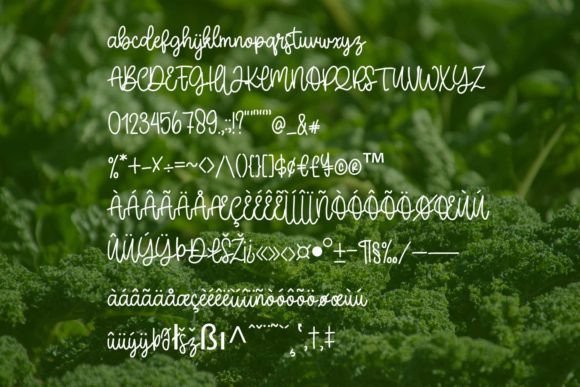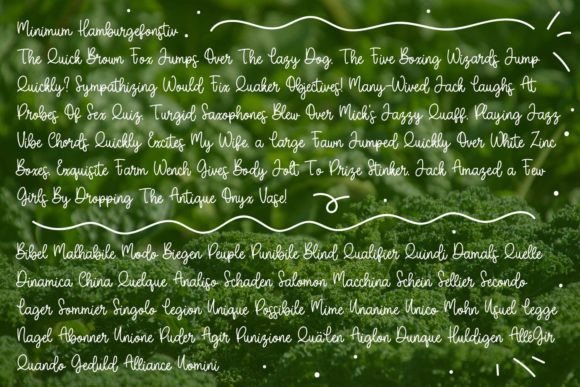
Introducing Broccoli Script Font: The Fun and Friendly Handwritten Script Font
Are you looking for a font that can add a touch of personality and whimsy to your designs? Look no further than the Broccoli Script Font! This delightful handwritten script font is perfect for designers and crafters who want to create standout designs that capture the imagination. In this article, we’ll take a closer look at the Broccoli Script Font, its features, and how you can use it to elevate your designs.
The Charm of Broccoli Script Font
Broccoli Script Font is a fun and friendly handwritten script font that is sure to capture the hearts of designers and crafters alike. Its unique charm lies in its effortless, flowing strokes and delightful glyphs that add a touch of playfulness to any design. Whether you’re creating a logo, a poster, or a social media graphic, Broccoli Script Font is the perfect choice to add a dash of personality to your work.
One of the standout features of Broccoli Script Font is its PUA (Private Use Area) encoding. This means that you can access all the delightful glyphs and swashes effortlessly, making it easy to create stunning designs that showcase your creativity. With PUA encoding, you can easily access the font’s extended character set, including ligatures, ornaments, and other special characters that will take your designs to the next level.
Why Choose Broccoli Script Font?
So, why choose Broccoli Script Font over other script fonts? Here are just a few reasons why this font stands out:
- Unique and playful design: Broccoli Script Font has a one-of-a-kind design that is sure to grab attention. Its playful strokes and delightful glyphs make it perfect for designs that require a touch of whimsy.
- PUA encoded: With PUA encoding, you can easily access the font’s extended character set, making it easy to create stunning designs.
- Versatile: This font is perfect for a wide range of design projects, from logos and posters to social media graphics and more.
How to Use Broccoli Script Font
Using Broccoli Script Font is easy! Here are a few tips to get you started:
- Pair it with a bold font: Broccoli Script Font pairs perfectly with bold fonts, creating a striking contrast that adds visual interest to your designs.
- Experiment with glyphs and swashes: With PUA encoding, you can easily access the font’s extended character set. Experiment with different glyphs and swashes to add a touch of personality to your designs.
- Use it for headings and titles: Broccoli Script Font is perfect for headings and titles, adding a touch of whimsy and personality to your designs.
In conclusion, Broccoli Script Font is a fun and friendly handwritten script font that is perfect for designers and crafters who want to create standout designs. With its unique charm, PUA encoding, and ease of use, this font is sure to become a favorite in your design toolkit. So why wait? Get inspired by Broccoli Script Font today and create lovely designs that capture the imagination!
Whether you’re a seasoned designer or just starting out, Broccoli Script Font is a great addition to your font library. Its versatility and playfulness make it perfect for a wide range of design projects, from logos and posters to social media graphics and more. So go ahead, give Broccoli Script Font a try, and see how it can elevate your designs to the next level!